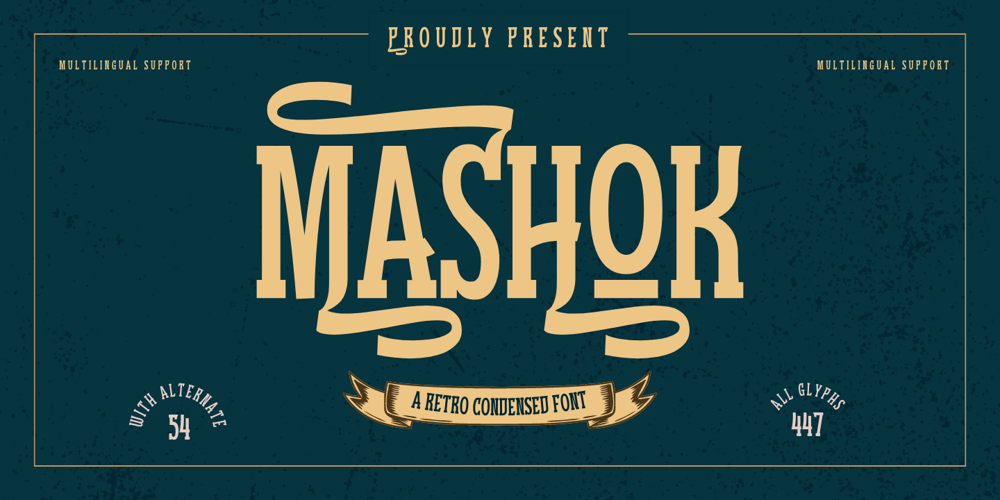
Mashok
Mashok font
Mashok Font Family was designed by Rozikan and published by Twinletter. Mashok contains 1 styles and family package options. Mashok is a retro condensed font that exudes a vintage feel, perfect for adding a touch of nostalgia to your designs. This font features a tall and narrow letterform, making it ideal for creating eye-catching headlines and titles. With its unique stylistic alternates and ligatures, Mashok adds an extra level of charm and personality to your designs. Whether you’re creating posters, book covers, or other graphic design projects, Mashok is sure to make your text stand out. Give your designs a retro flair with Mashok today!What’s Included :- File font- All glyphs Iso Latin 1- Alternate, Ligature- Simple installations- We highly recommend using a program that supports OpenType features and Glyphs panels like many Adobe apps and Corel Draw so that you can see and access all Glyph variations.- PUA Encoded Characters – Fully accessible without additional design software.- Fonts include Multilingual support